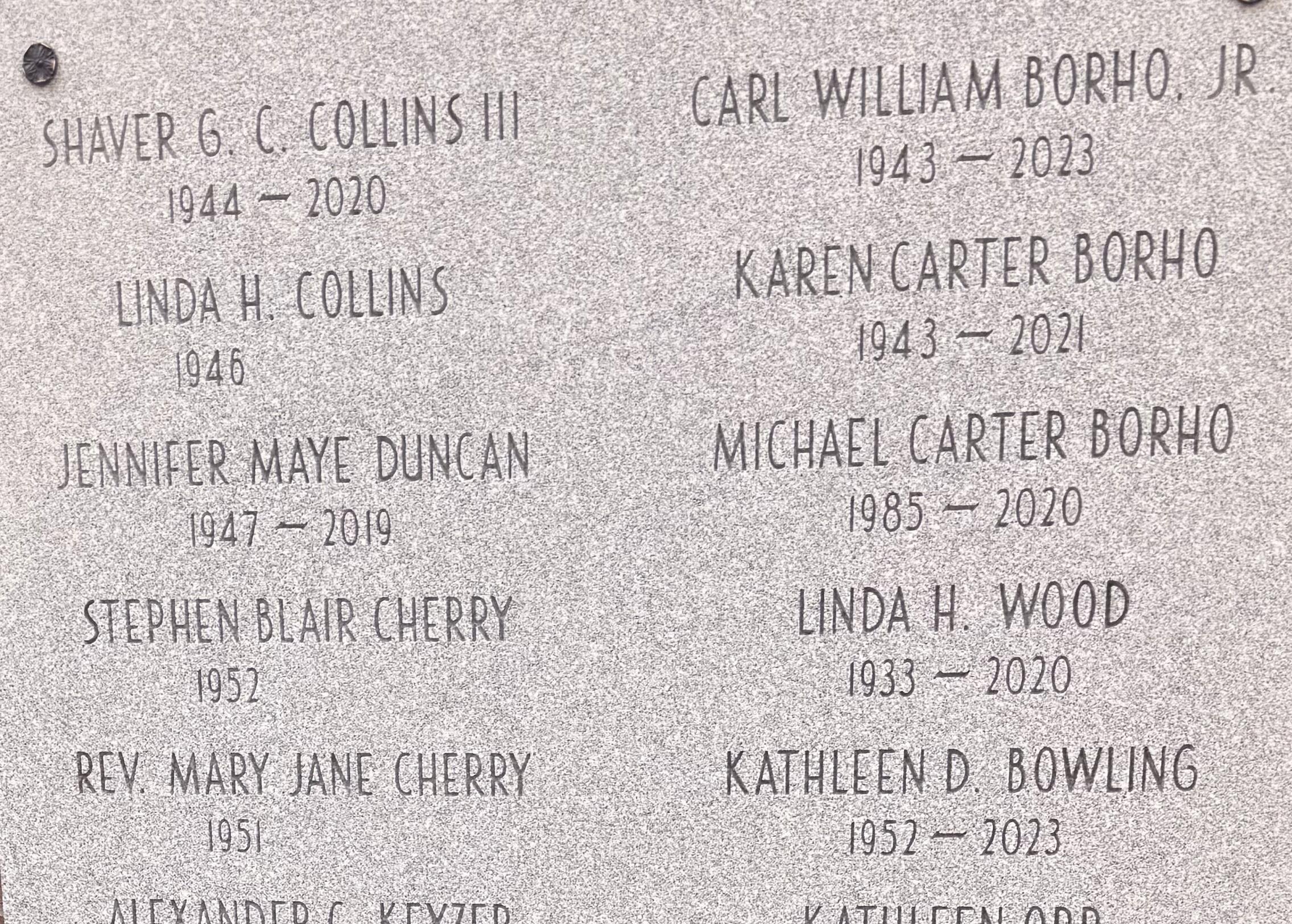
Which Deco?
Any ideas where to find this one?
This is an AICA association font, named AICA-25. It was originally a part of the AICA’s blueprint alphabet series, though there are now several digital versions that have been created by AICA members.
Yes, this is the same font, though it is likely a slightly different version.